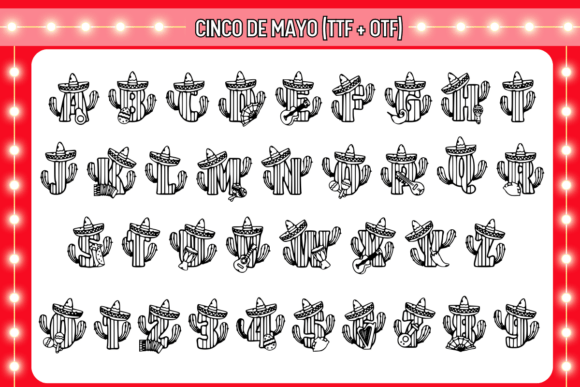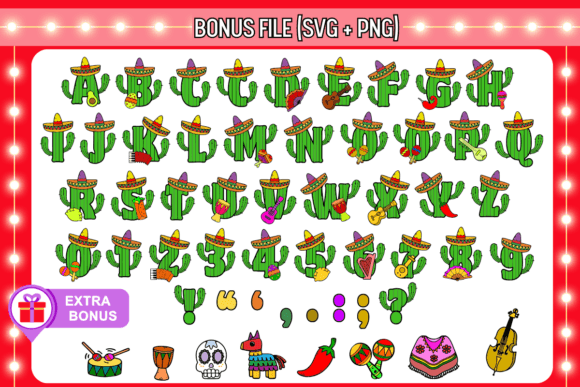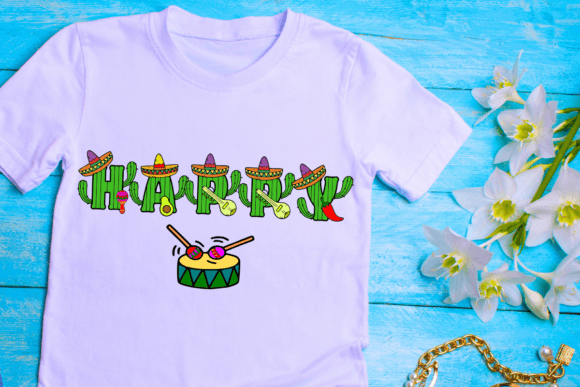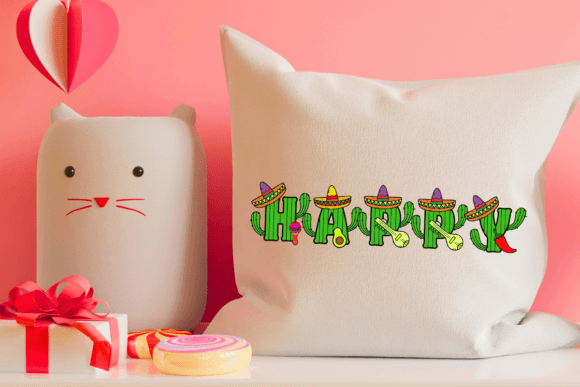
Cinco De Mayo Font: A Fun and Festive Design for Your Celebrations
Cinco de Mayo is a festive holiday that celebrates Mexican heritage and culture. It’s a day to rejoice in the rich traditions and vibrant spirit of Mexico, and what better way to do so than with a fun and festive design? Imagine a creative design where the letters spelling “Cinco de Mayo” are made of cactuses, decorated with colorful details, perfect for the celebration. In this article, we’ll explore the concept of a Cinco De Mayo font, and how you can use it to add a touch of nature and festivity to your designs.
The Significance of Cinco de Mayo
Cinco de Mayo, which translates to “Fifth of May,” is a significant holiday in Mexico and the United States. It commemorates the Mexican army’s victory over French forces at the Battle of Puebla on May 5, 1862. Today, it’s a celebration of Mexican heritage and culture, marked with parades, food, music, and festivities. As a designer or crafter, you can create unique and engaging designs that reflect the spirit of this joyous occasion.
Introducing the Cactus Font
The cactus font is a creative and imaginative design concept that uses cacti as the building blocks for the letters spelling “Cinco de Mayo.” The cacti are adorned with colorful details, such as flowers, sombreros, and piñatas, to give the design a festive and lively feel. This design is perfect for Cinco de Mayo celebrations, as it incorporates natural elements and vibrant colors that reflect the holiday’s spirit.
Design Ideas for Cinco De Mayo Font
The possibilities are endless when it comes to designing with a Cinco De Mayo font. Here are a few ideas to get you started:
- Custom Party Invitations: Create personalized party invitations with a cactus font that sets the tone for a fun and festive celebration.
- Mexican-Inspired Crafts: Use the cactus font to create unique and colorful crafts, such as paper cutouts, garlands, or DIY decorations.
- Social Media Graphics: Design engaging social media graphics with a Cinco De Mayo font to share with your friends and followers.
- Custom Signs and Banners: Create eye-catching signs and banners with a cactus font to hang at your party or event.
Tips for Creating a Cinco De Mayo Font
If you’re feeling creative, you can try creating your own Cinco De Mayo font using cacti and colorful details. Here are some tips to keep in mind:
- Choose a bold and playful font style: A bold and playful font style will help bring out the festive spirit of your design.
- Use vibrant colors: Incorporate vibrant colors, such as pink, green, yellow, and orange, to reflect the lively spirit of Cinco de Mayo.
- Experiment with different cactus shapes: Use different shapes and sizes of cacti to create a unique and visually appealing design.
- Add decorative details: Add decorative details, such as flowers, sombreros, or piñatas, to give your design a festive touch.
Cinco de Mayo is a joyous celebration of Mexican heritage and culture, and a fun and festive design can add to the excitement. A Cinco De Mayo font made of cacti and colorful details is a creative and imaginative way to express your creativity and festive spirit. Whether you’re a designer, crafter, or simply someone who loves to celebrate, we hope this article has inspired you to create unique and engaging designs that reflect the spirit of this special holiday.